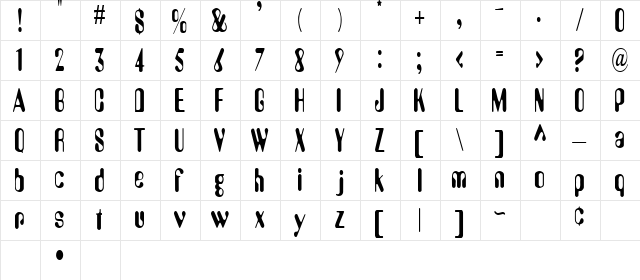
AlienEyeCondensed Regular
Design Context for AlienEyeCondensed Typeface
AlienEyeCondensed is a composed and adaptable typeface that performs quietly and consistently across a wide range of design contexts. The condensed width makes it efficient for tight spaces without sacrificing legibility.